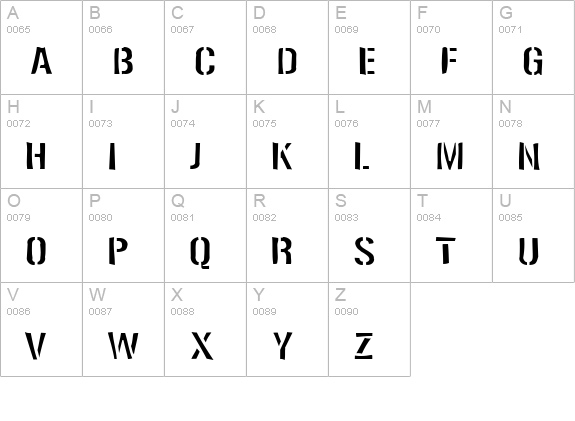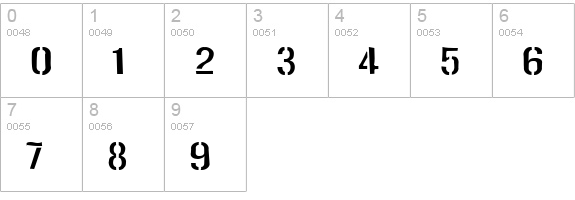
Gunplay Gaunt Font Details
Gunplay Gaunt font is a striking display typeface that exudes a sense of boldness and power. With its sharp angles and edgy design, this font is perfect for creating eye-catching headlines, posters, and other graphic design projects that demand attention. Its unique style sets it apart from other fonts, making it a great choice for projects that require a touch of edginess. What sets Gunplay Gaunt font apart is not only its distinctive design, but also the fact that it is freely available to download at FontsMarket.com. This means that you can easily access this dynamic font for your creative projects without any cost. Whether you're a designer looking to spice up your work or a hobbyist looking to experiment with different fonts, Gunplay Gaunt font is a versatile and exciting option that is sure to make a statement.